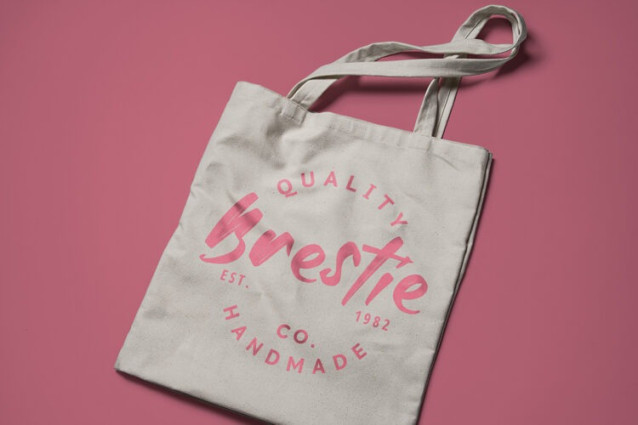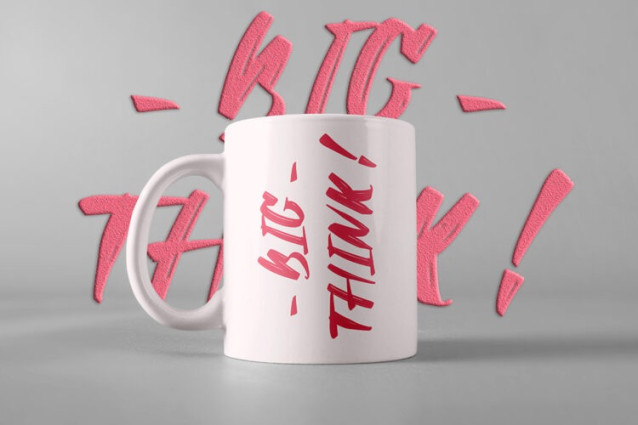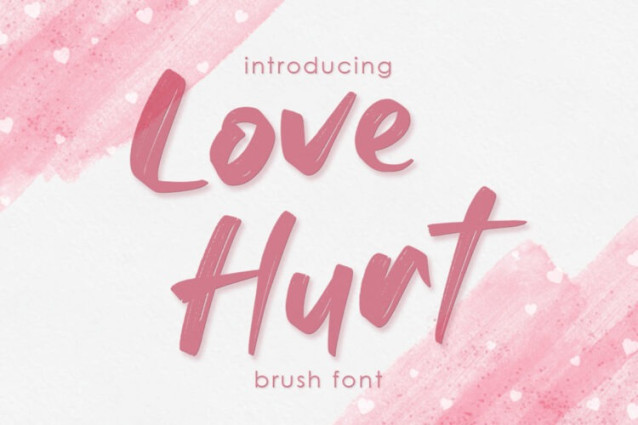
Love Hurt Font
Love Hurt Font, Made with naturally brush. The font will make your design more beautiful and powerful. This font is suitable for any design like branding, packaging, invitation, apparel, quotes, t-shirt printing and etc.